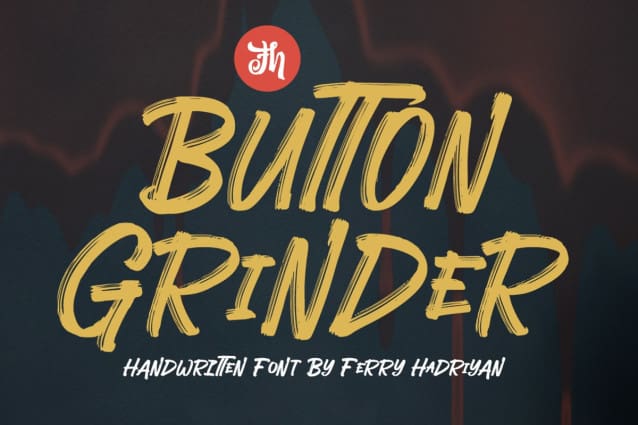
Button Grinder Font
Button Grinder Font is display font with handwritten dry brush style, ispired by halloween event and grunge rock style, with opentype feature include of the font. Suitable for design, element design, wedding, event, t-shirt, logo, badges, sticker, and awesome work, etc…